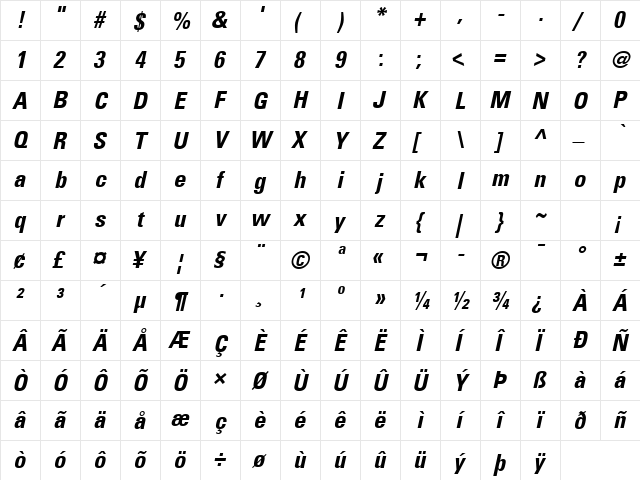
Univers 57 Condensed Bold Oblique Font Preview
Design Context for Univers 57 Condensed Typeface
Univers 57 Condensed takes a measured approach to typography — its balanced proportions and neutral character make it a reliable workhorse for both digital and print work. Its italic angle brings a sense of urgency and motion to the letterforms. Its bold stroke weight gives it real presence on the page. Its narrow stance lets it pack a punch even in space-constrained designs.
Pro Tip: Use Univers 57 Condensed for emphasis, pull quotes, and subheadings where its slanted energy can add rhythm to the layout.